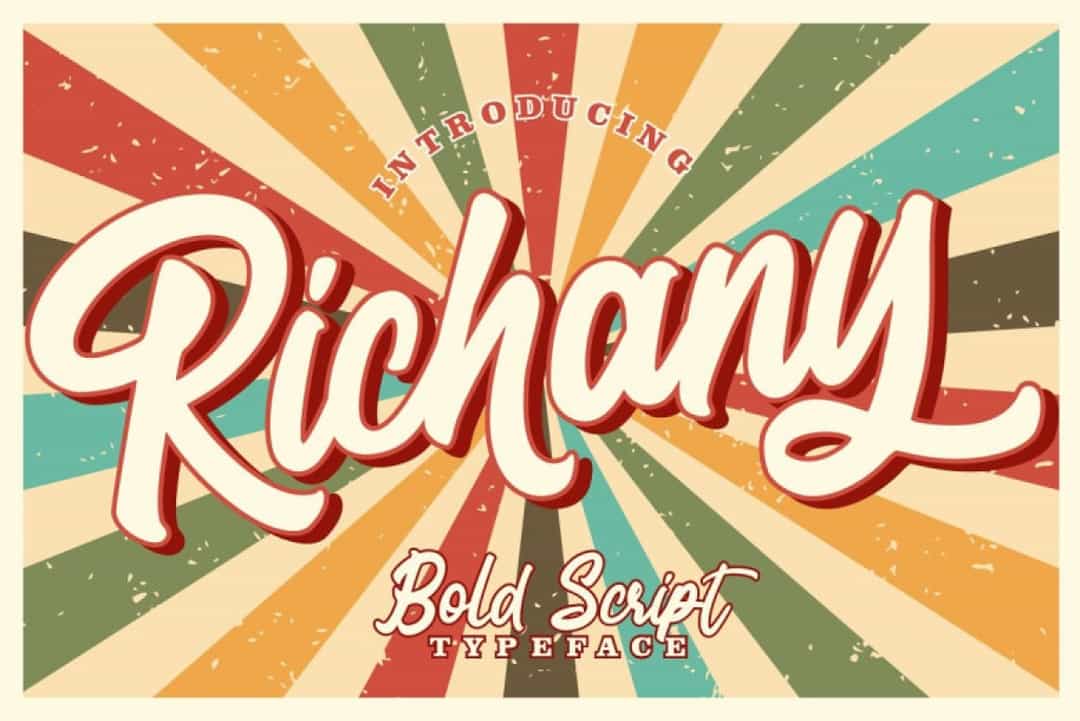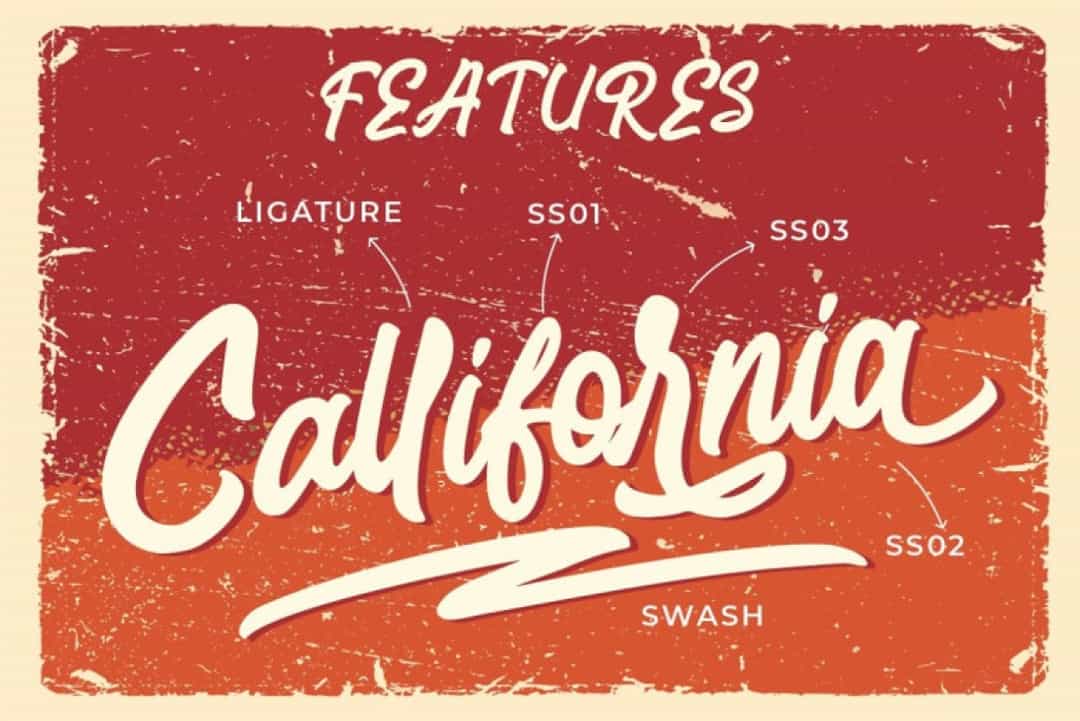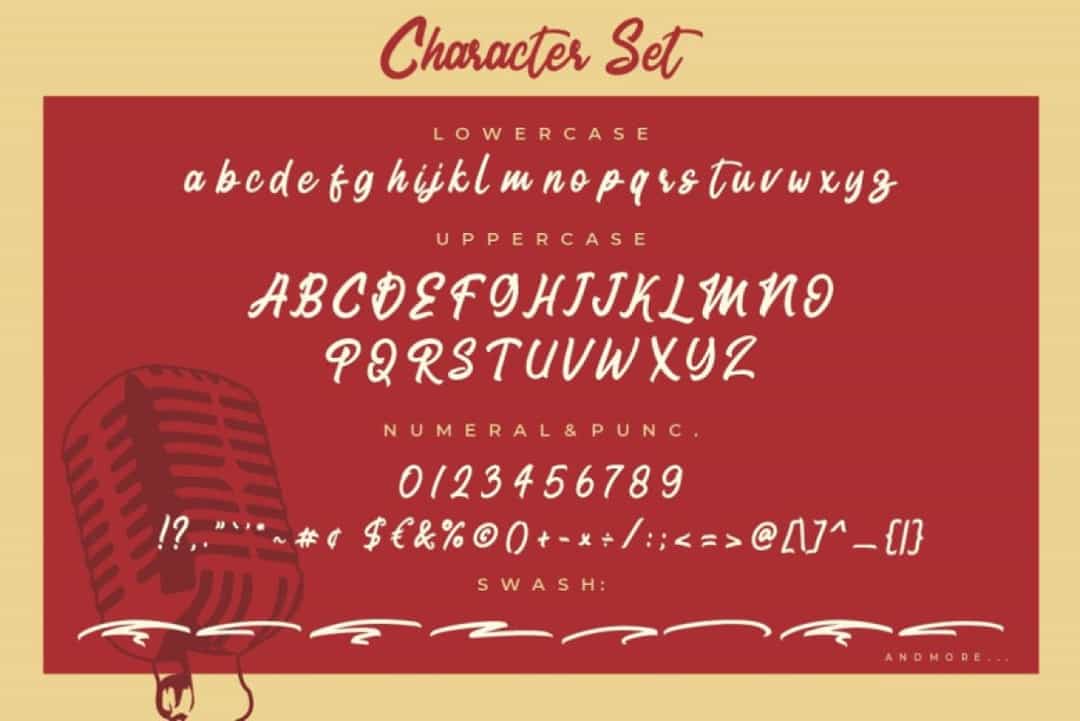
Richany font is now available and looks amazing when applied to projects of any kind – movie titles, logos blog designs, branding book titles social media invitations wedding cards design projects and more! Suitable for use across various occasions!